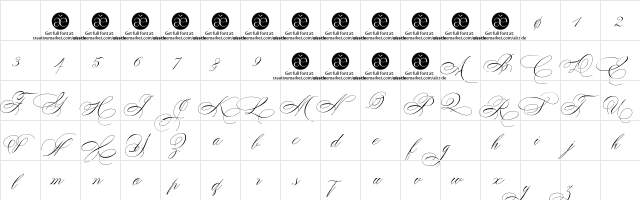
Complete Peaches Regular glyph index. Displaying only characters natively supported by Peaches Regular font.
Peaches is a composed and adaptable typeface that performs quietly and consistently across a wide range of design contexts.